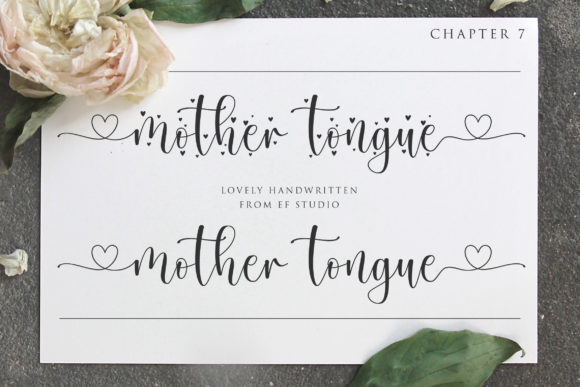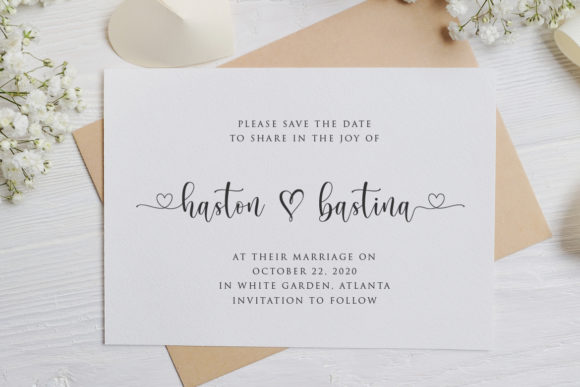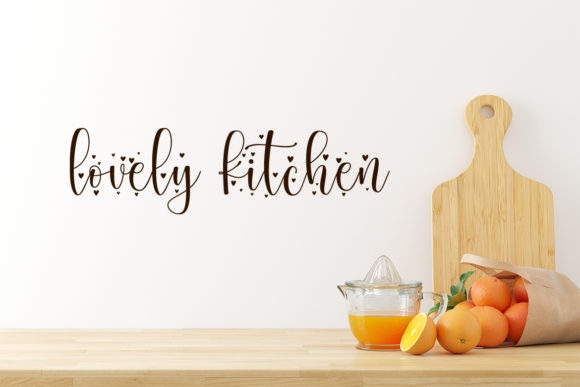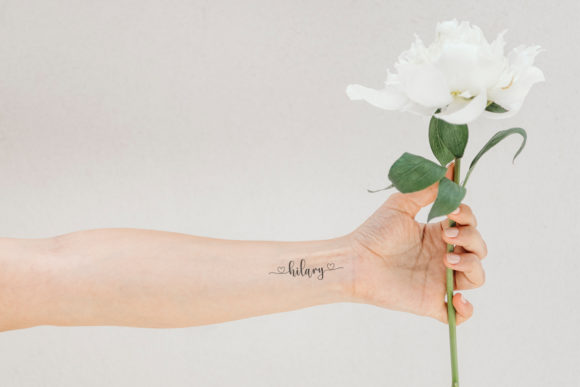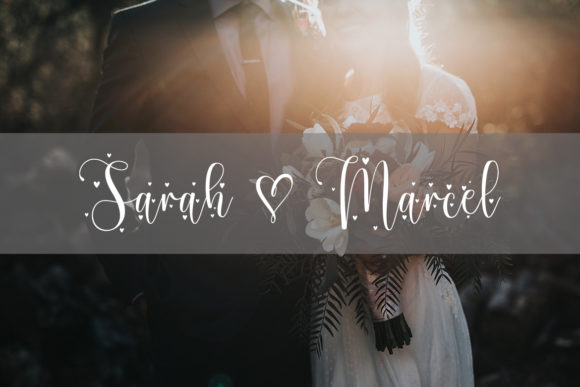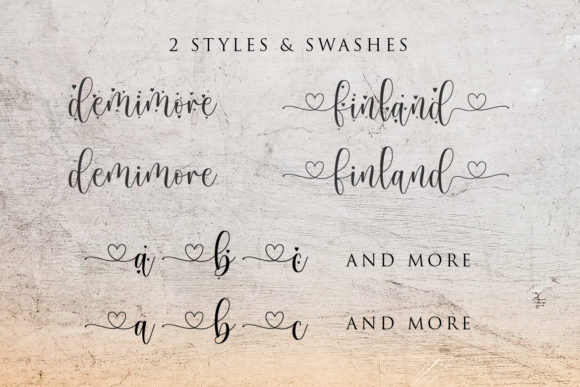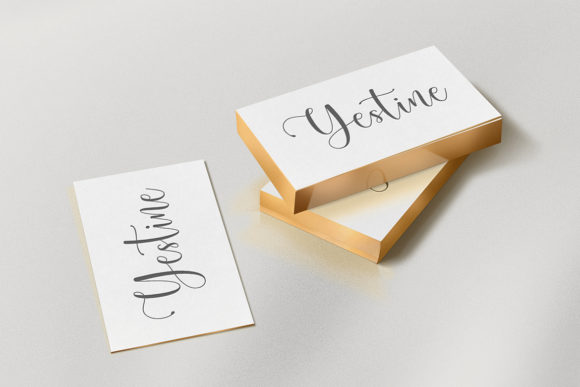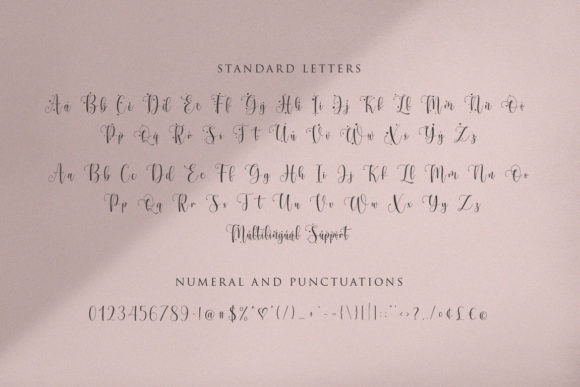
Mother Tongue Font
About Mother Tongue Font
Mother tongue is a beautiful handwritten font with 2 styles and additional lowercase beginning and ending swashes. Suitable for invitations, stationery, wedding designs, labels, logos, special events and more.